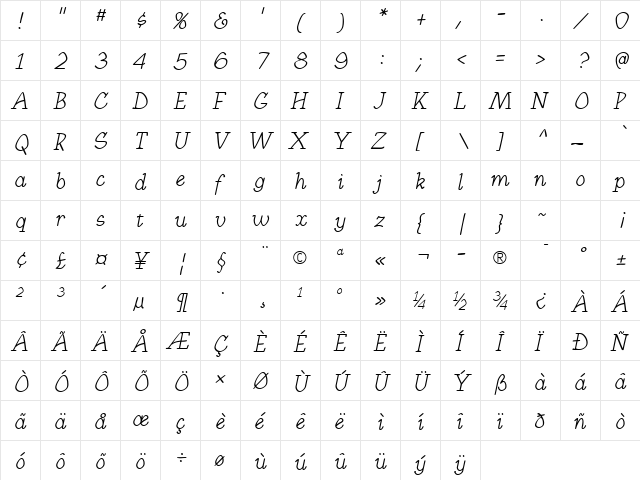
KampFriendship Italic
Design Context for KampFriendship Typeface
KampFriendship is a composed and adaptable typeface that performs quietly and consistently across a wide range of design contexts. The dynamic lean of this cut emphasises speed and emphasis in any layout.
Pro Tip: Use KampFriendship for emphasis, pull quotes, and subheadings where its slanted energy can add rhythm to the layout.